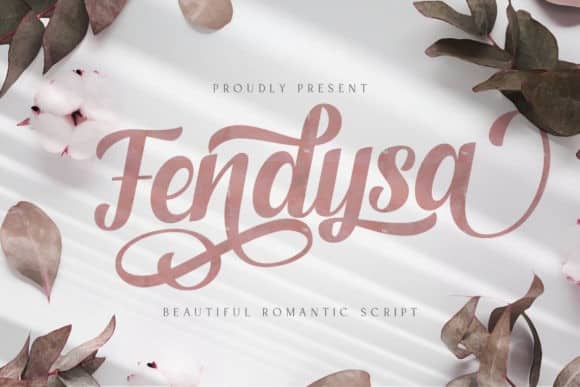
Fendysa Calligraphy Font
Meet Fendysa Calligraphy Font, A new carefully crafted delightful bold font on a script typefaces. It’s designed and shared by StringLabs. It’s a cute and casual handwritten typeface with an incredibly friendly feel.
It features gorgeous swashes and ligatures that make this script incredibly versatile. Whether you’re looking for fonts for Instagram or calligraphy scripts for DIY projects, Fendysa will turn any creative idea into a true piece of art!
This font is PUA encoded which means you can access all of the cute glyphs and swashes with ease! It also features a wealth of special features including alternate glyphs and ligatures.